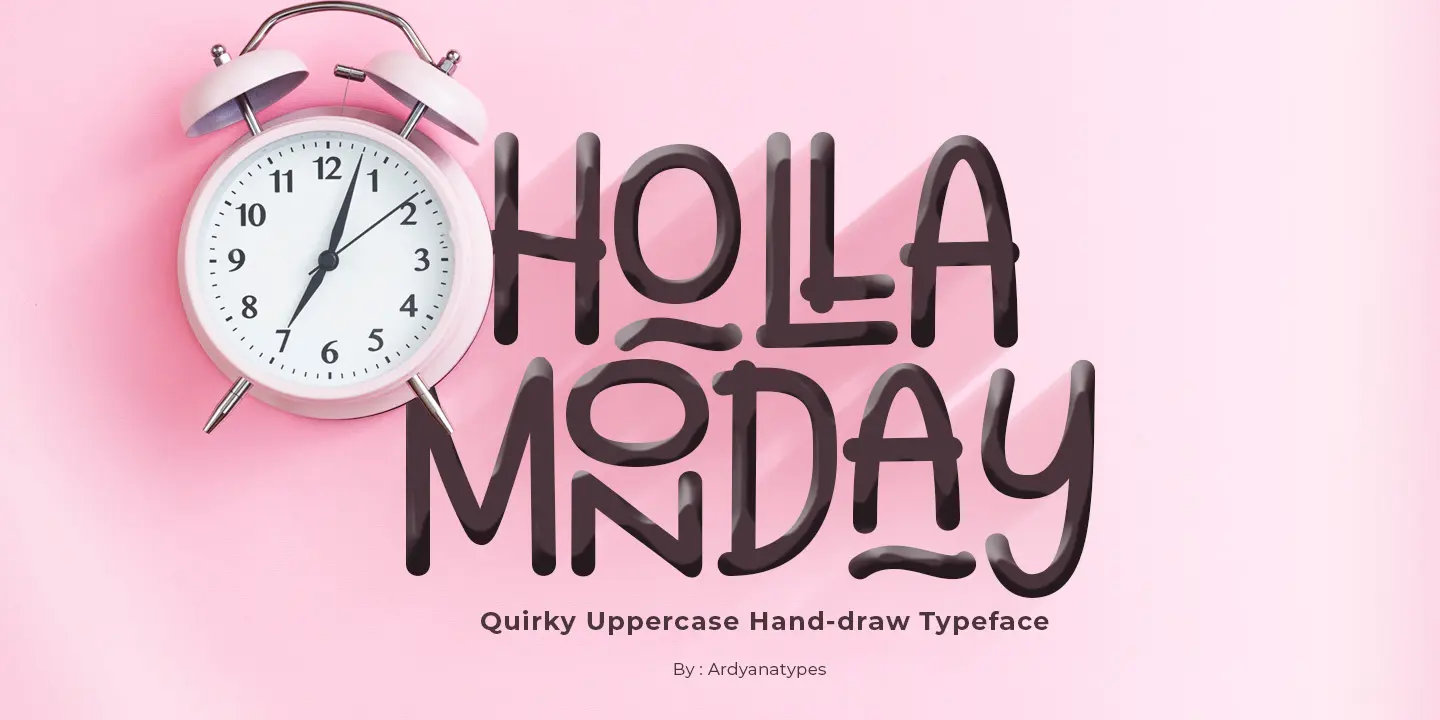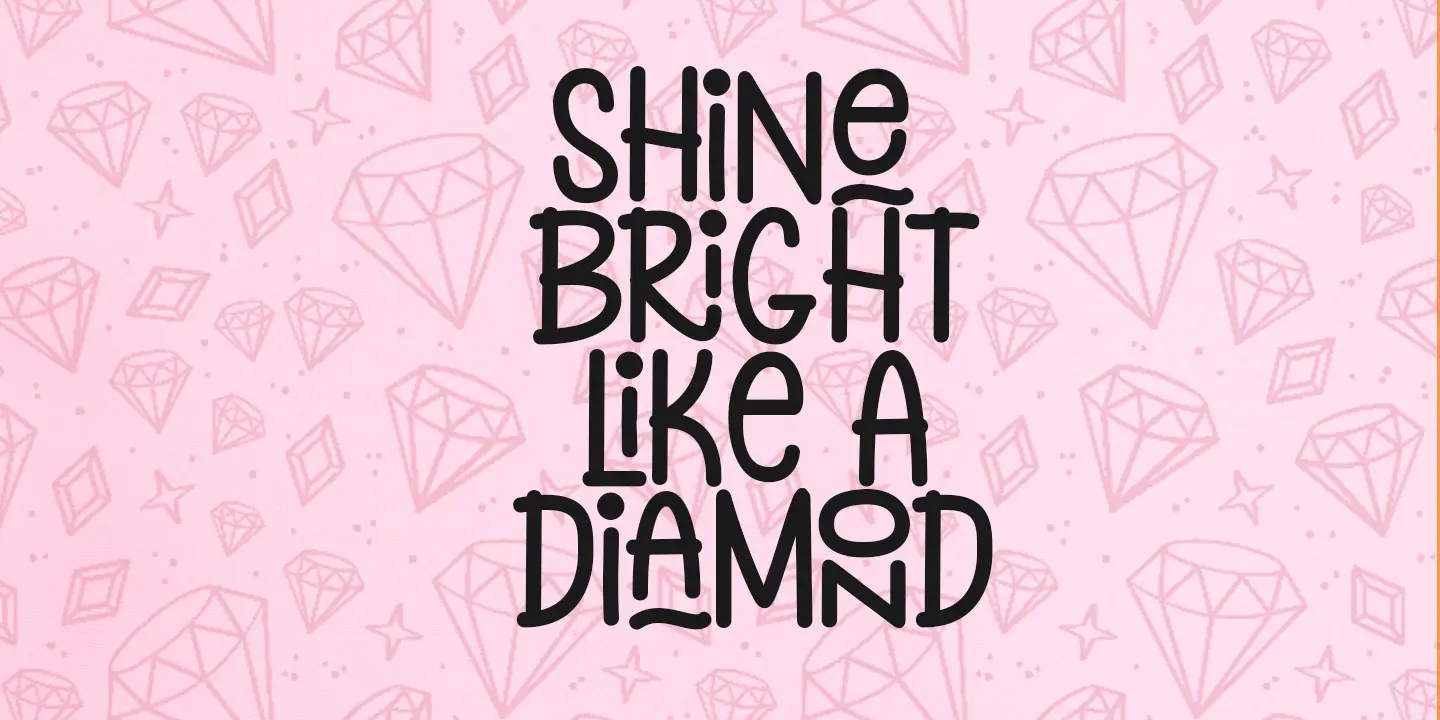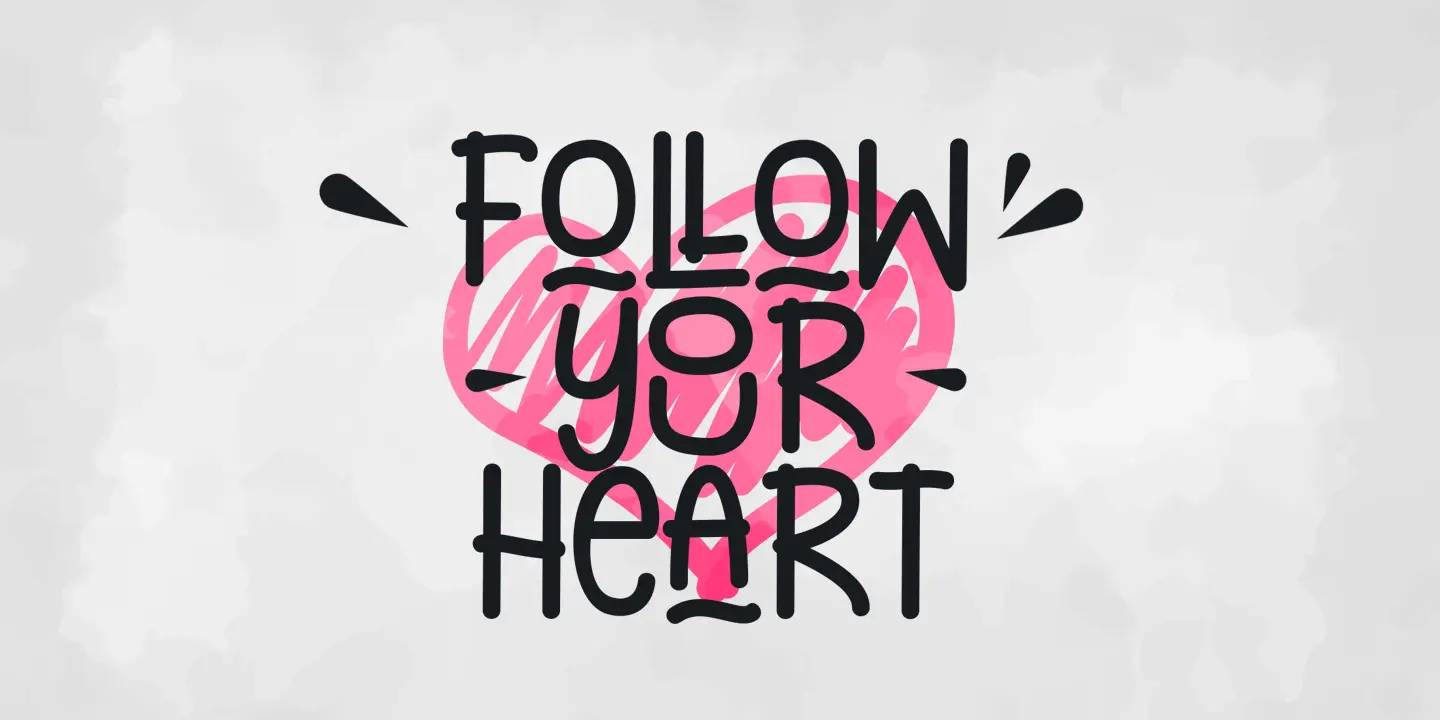
Holla Monday
Holla Monday has an opentype feature that will automatically turn each character into a binder. gives a cheerful impression, making it very easy to read and apply to all design projects such as poster designs, clothing, logos, quotes, album covers, books, business cards, product designs, and many more design projects. Naughty Monster has its own charm when used. We make this font look funny, easy to remember, and easy to use.
• and and
• anD anD
• aNd aNd
• aND aND
• oto oto
• otO otO
• oTo oTo
• oTO oTO
• And And
• AnD AnD
• ANd ANd
• AND AND
• Oto Oto
• OtO OtO
• OTo OTo
• OTO OTO
• ck ck
• co co
• cK cK
• cO cO
• et et
• eT eT
• fF fF
• fI fI
• gr gr
• gR gR
• hy hy
• hY hY
• ir ir
• iR iR
• th th
• to to
• tH tH
• tO tO
• tT tT
• qu qu
• qo qo
• qO qO
• qU qU
• ra ra
• re re
• ri ri
• ro ro
• rA rA
• rE rE
• rI rI
• rO rO
• ou ou
• on on
• oN oN
• oU oU
• nd nd
• nD nD
• la la
• ld ld
• li li
• lo lo
• lA lA
• lD lD
• lI lI
• lL lL
• lO lO
• Ck Ck
• Co Co
• CK CK
• CO CO
• Et Et
• ET ET
• Ff Ff
• Fi Fi
• FF FF
• FI FI
• Gr Gr
• GR GR
• Hy Hy
• HY HY
• Ir Ir
• IR IR
• La La
• Ld Ld
• Li Li
• Lo Lo
• Ll Ll
• LA LA
• LD LD
• LI LI
• LL LL
• LO LO
• Nd Nd
• ND ND
• Ou Ou
• On On
• ON ON
• OU OU
• Qu Qu
• Qo Qo
• QO QO
• QU QU
• Ra Ra
• Re Re
• Ri Ri
• Ro Ro
• RA RA
• RE RE
• RI RI
• RO RO
• Th Th
• Tt Tt
• To To
• TH TH
• TO TO
• TT TT